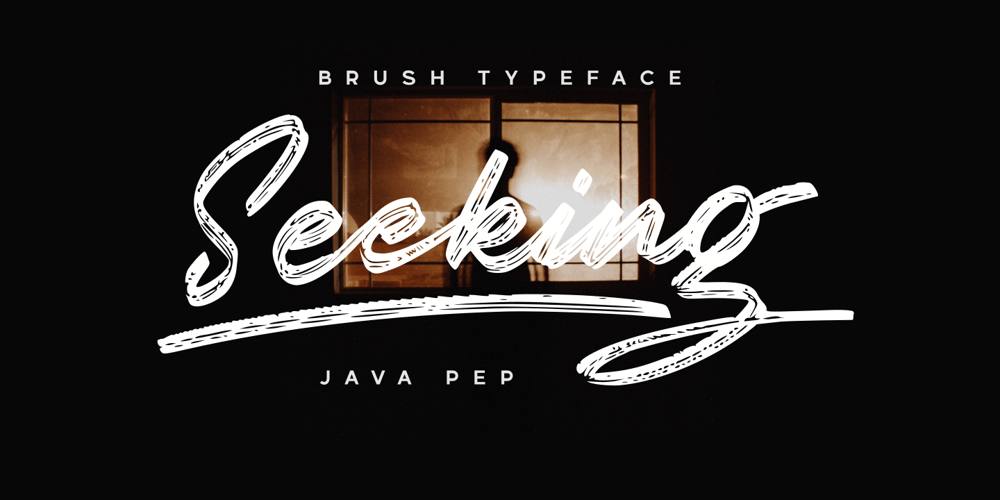
Seeking Brush Font Family was designed by Java Pep and published by Java Pep. Seeking Brush contains 2 styles and family package options. Introducing Fresh from the Oven, a casual handwritten brush font with a signature style called Seeking font. This font comes with ligature and swash, Seeking font is perfect for logotype, display text, headline, branding, advertising, social media posts, etc. Seeking font available for multilingual support that more than 25 languages.What’s include Seeking font Seeking Swash PUA encoded Multilingual Support Thanks, and have a nice day